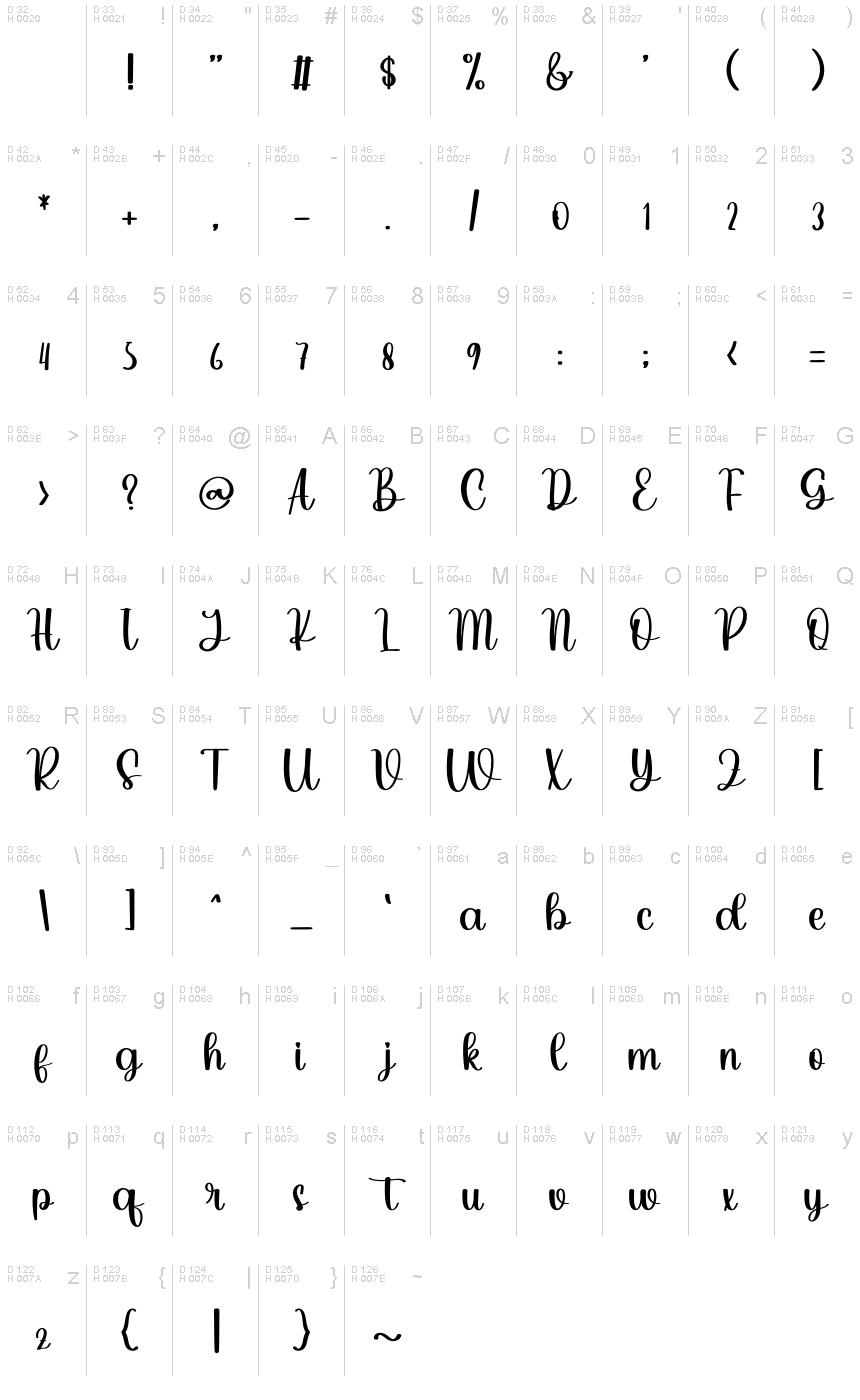
Vintage
Vintage, crafted by the artisanal hands at PiPi Creative, embodies the timeless elegance of handwritten scripts with a modern twist. Each stroke in this font resonates with the warmth and personal touch that only handcrafted lettering can provide, making it a perfect choice for projects that demand a touch of intimacy and nostalgia.
The flowing contours and varying line weights of Vintage lend themselves to an aesthetic that's both sophisticated and inviting. Its style is versatile enough to enhance everything from wedding invitations and branding materials to editorial layouts with an air of bespoke sophistication.
Whether you seek to evoke the charm of yesteryear or simply add a human element to your design, Vintage stands out as an exquisitely stylized font that bridges the gap between traditional craftsmanship and contemporary design sensibilities.